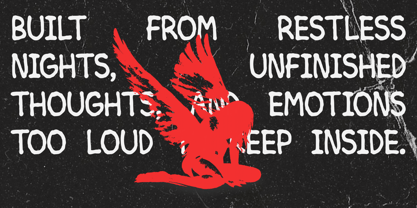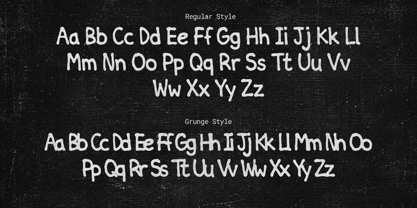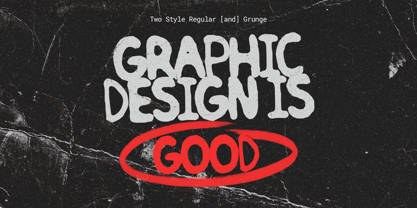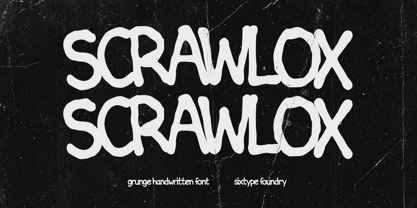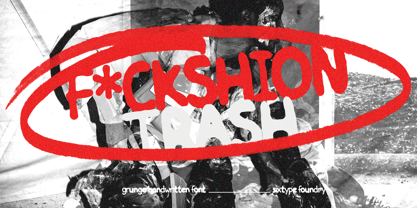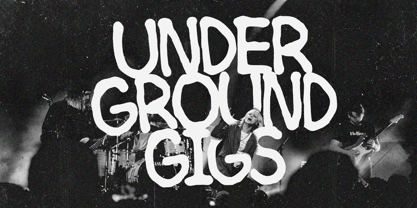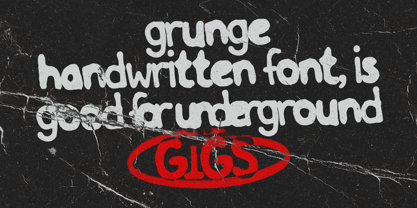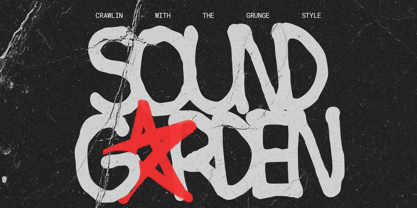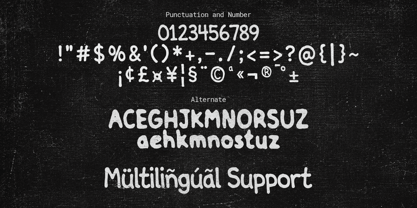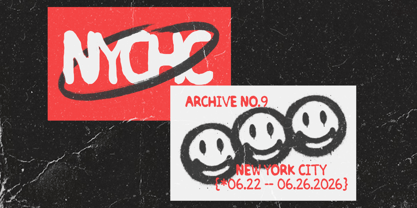
Scrawlox
by Sixtype Foundry
Scrawlox is a bold grunge handwritten display font designed for projects that demand attitude, energy, and an authentic handmade feel. Featuring chunky strokes, irregular shapes, playful proportions, and organic curves, Scrawlox captures the spontaneity of hand lettering, making it ideal for modern graphic design. Its expressive character excels in various applications, including posters, album covers, music artwork, streetwear, branding, packaging, stickers, editorial layouts, social media graphics, and other eye-catching display uses. Scrawlox offers both Regular and Grunge styles, providing designers with the flexibility to choose between a cleaner handwritten look and a more distressed, underground aesthetic. The Grunge style is particularly effective when paired with rough textures, photocopy effects, scratched surfaces, collage artwork, vintage photography, and bold color treatments. Alternate characters enhance visual variety, allowing for more natural and dynamic lettering compositions. Inspired by punk, rock, alternative culture, DIY graphics, and contemporary street aesthetics, Scrawlox is crafted for typography that embraces imperfection. Its unique letterforms convey a raw, youthful, and rebellious personality while ensuring bold visibility at display sizes. Use Scrawlox for impactful headlines, expressive slogans, merchandise, event posters, creative campaigns, or any project that requires a distinctive handwritten edge. Scrawlox transforms ordinary words into striking graphic statements filled with character, movement, and attitude.